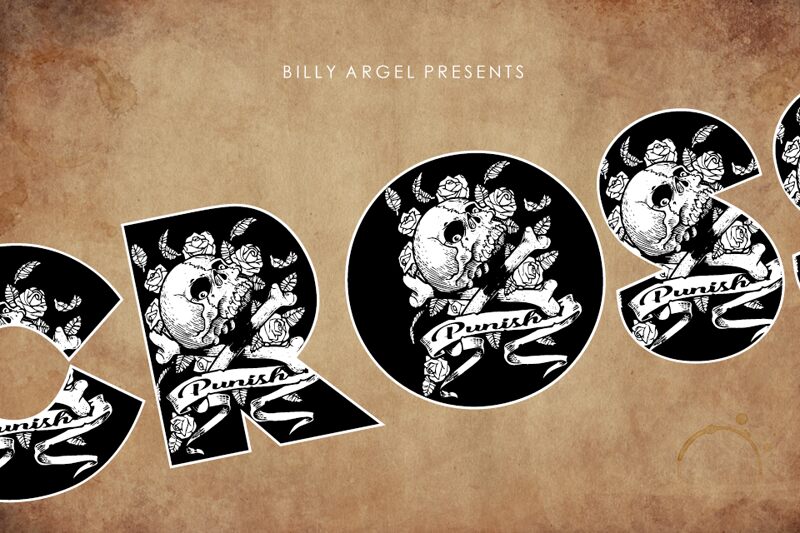
CROSSBONES PERSONAL USE Bold
CROSSBONES Bold is a striking display font designed by Billy Argel. This decorative font features bold letterforms and an eye-catching style. It is the perfect choice to add visual impact to any project, from headlines and logos to posters and packaging. CROSSBONES Bold is sure to captivate attention and make your designs stand out! Its unique style makes it suitable for both edgy, modern designs as well as vintage-inspired creations.
Two layered fonts.